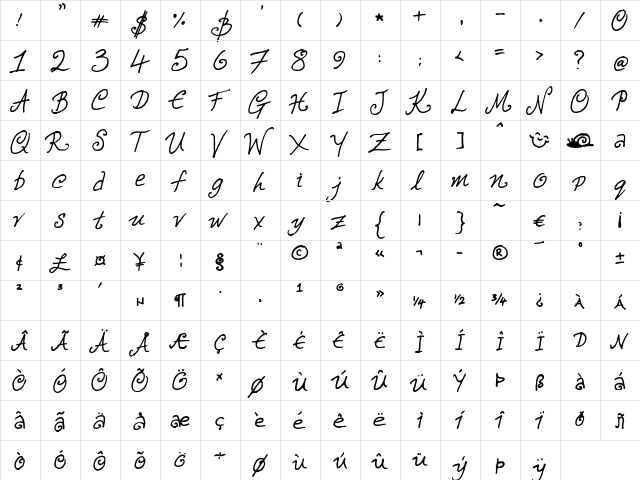
KariKatzi Font Regular
Design Context for KariKatzi Font Typeface
KariKatzi Font takes a measured approach to typography — its balanced proportions and neutral character make it a reliable workhorse for both digital and print work.